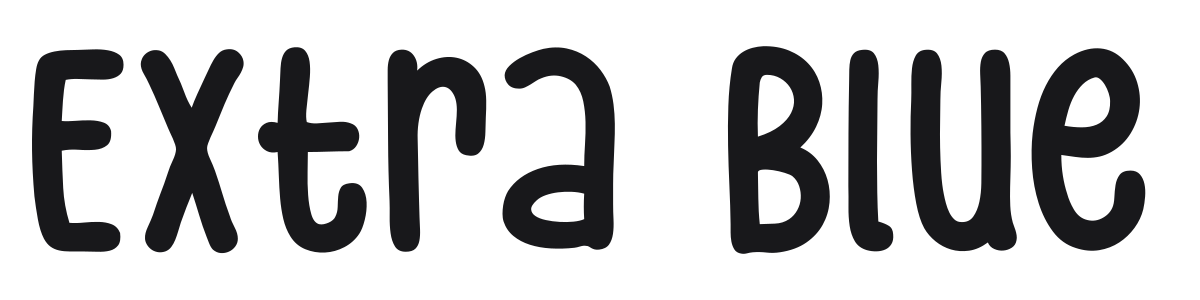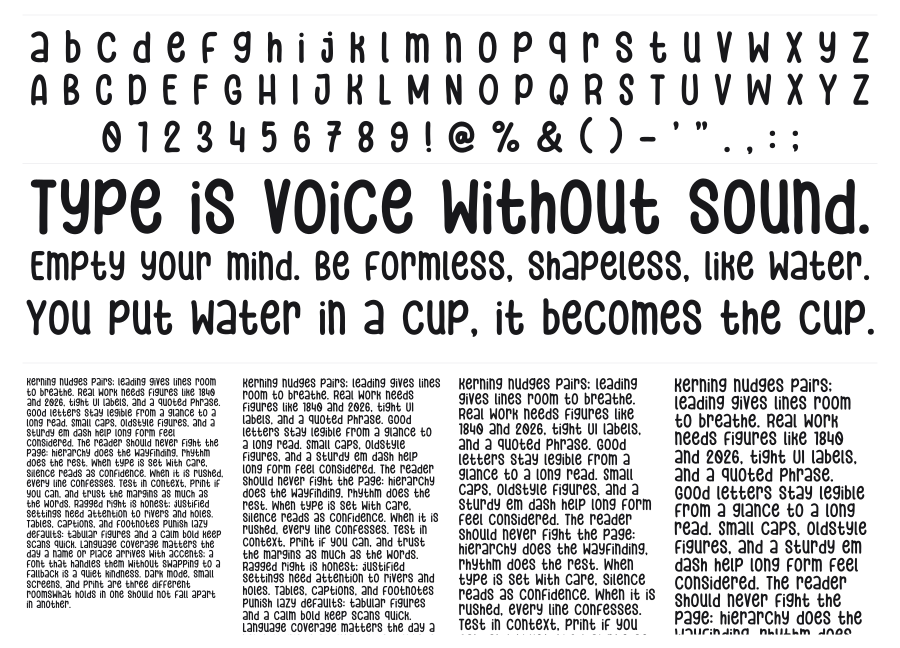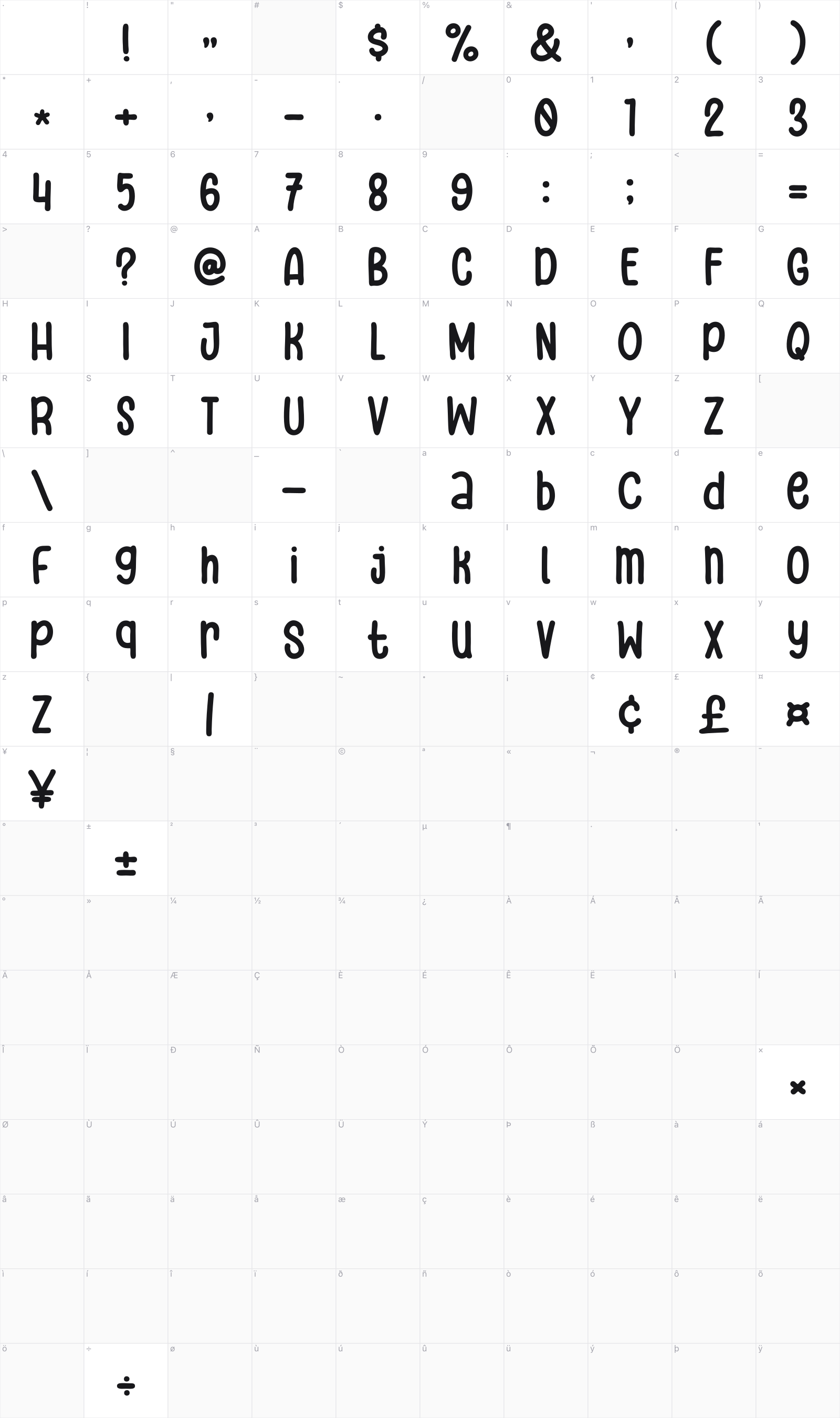
Extra Blue
Extra Blue is a bold, chunky rounded sans with a hand-drawn, cartoon energy reminiscent of thick marker lettering. Its characters have organic, slightly irregular silhouettes and blunt rounded terminals that give it an approachable, playful character. Strong at large sizes for children's branding, food packaging, and anything that needs a lighthearted personality.